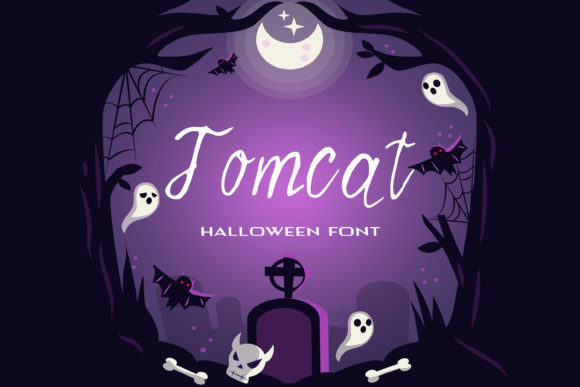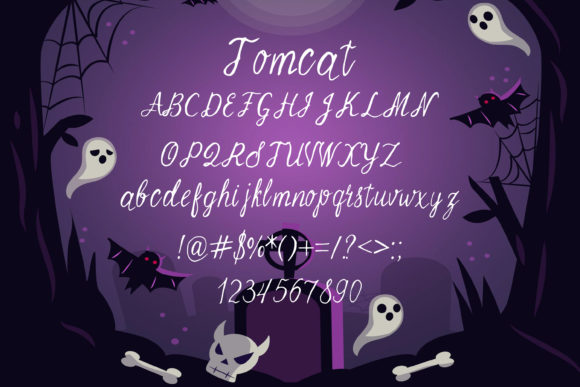
Tomcat Font
About Tomcat Font
Tomcat feels incredibly elegant and flowing. It looks stunning on wedding invitations, thank you cards, quotes, greeting cards, logos, business cards and every other design which needs a handwritten touch.